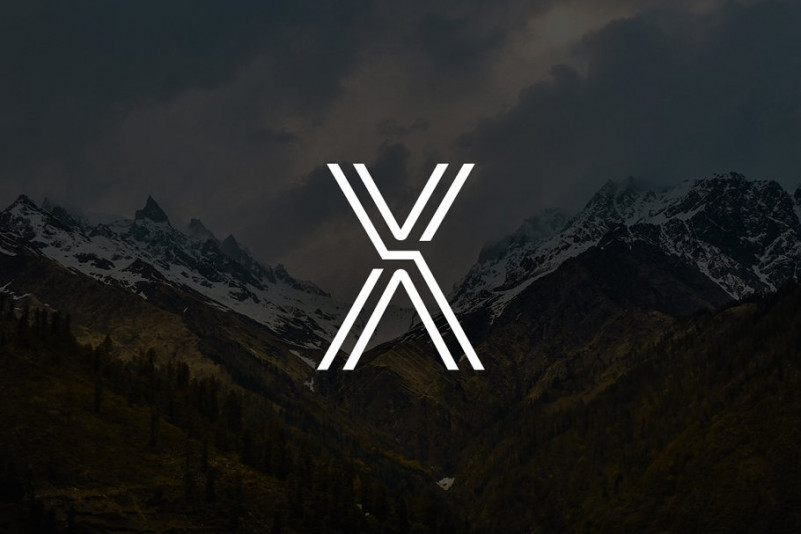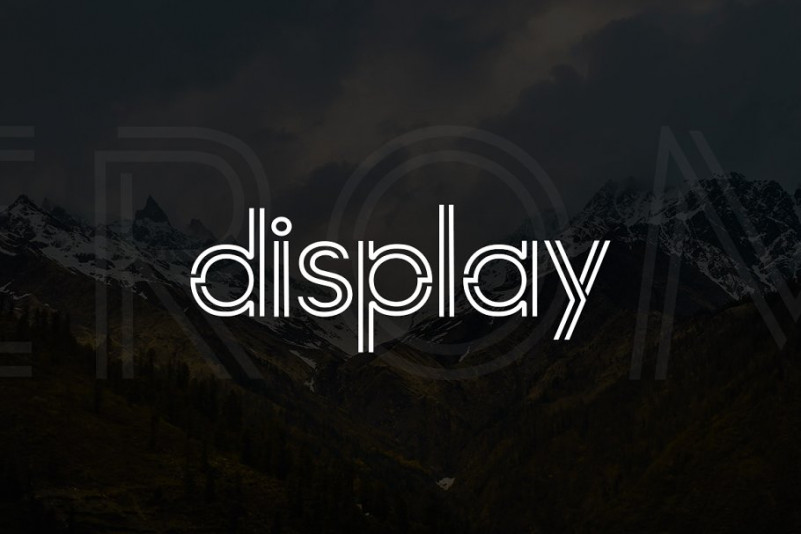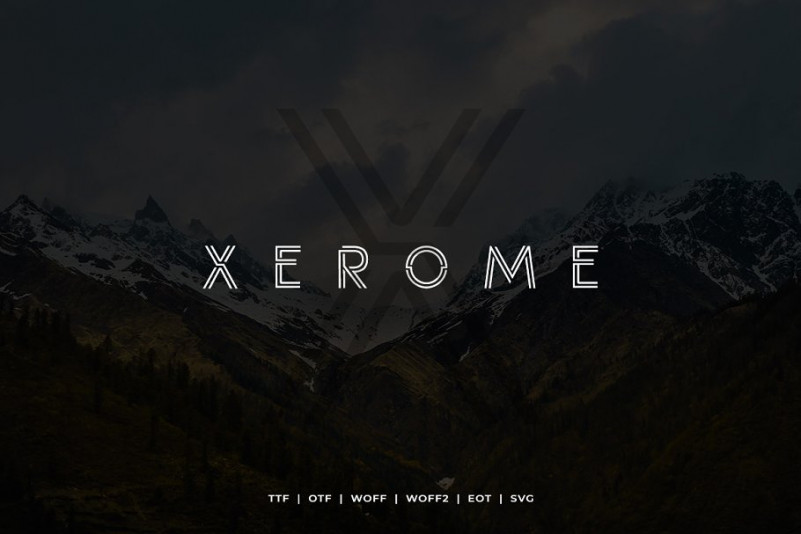
Xerome Display Typeface with Webfont Font
Xerome is a modern Sans Serif typeface very much suitable for Posters, headlines, Decorative letters, Notices, Logo Designs, Creative Banners. Creative & Decorative Typography Web Designs.
Xerome is perfectly suited for eye-catching fun based headlines. Its Kiddy appearance and mid-weight make it a wonderful candidate for being paired with more decorative, elaborate subheading fonts.